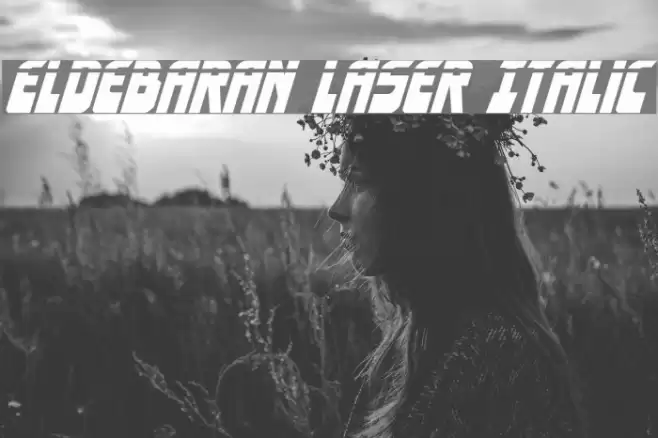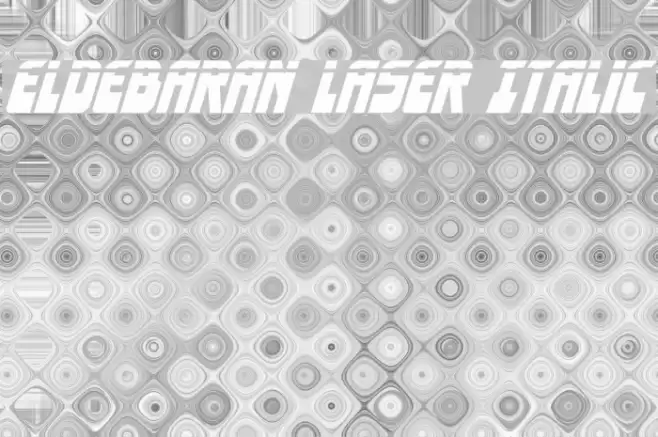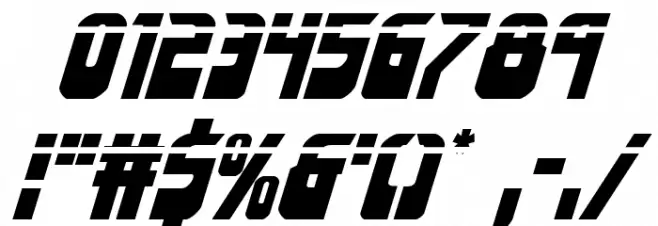
Eldebaran Laser Italic Font
Eldebaran Laser Italic Description
This font exhibits a bold and futuristic style with a strong emphasis on angular and geometric shapes. The characters are slanted, giving an italicized appearance that enhances its dynamic and energetic feel. The uppercase letters are particularly striking, with sharp edges and a sense of forward motion. The numbers and special characters maintain this bold aesthetic, making them highly legible and impactful. The overall design is cohesive, with consistent stroke thickness and a modern, tech-inspired look.
A bold, italicized font with a futuristic and angular design from Uncategorized fonts.
- Proposed Projects: Ideal for sci-fi themed projects, tech branding, video game titles, and dynamic posters.
- Overall Style: Futuristic